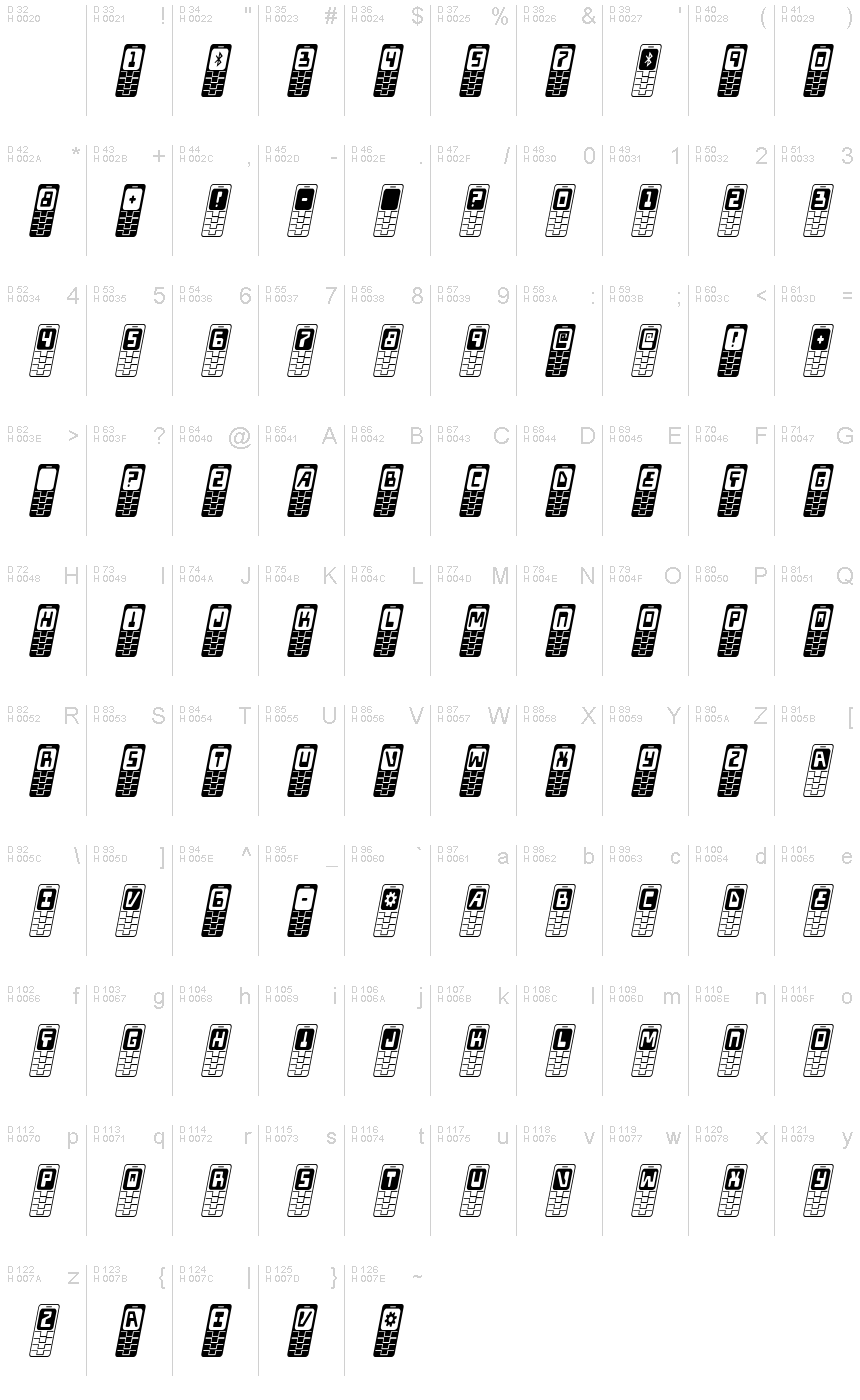
Hola Mota Condensed Italic
Hola Mota Condensed Italic, a captivating display font crafted by Iconian Fonts, exudes a sense of retro charm and modern sophistication. With its distinctive condensed silhouette and elegant italic flourishes, this font captivates the eye, evoking a nostalgic yet undeniably contemporary aesthetic.
The Hola Mota Condensed Italic font's playful, decorative nature lends itself seamlessly to a variety of design applications, from eye-catching headlines and impactful branding to dynamic product packaging and attention-grabbing social media content. Its versatility allows designers to infuse their creations with a unique flair, making it a valuable asset in the pursuit of visually striking and memorable designs.